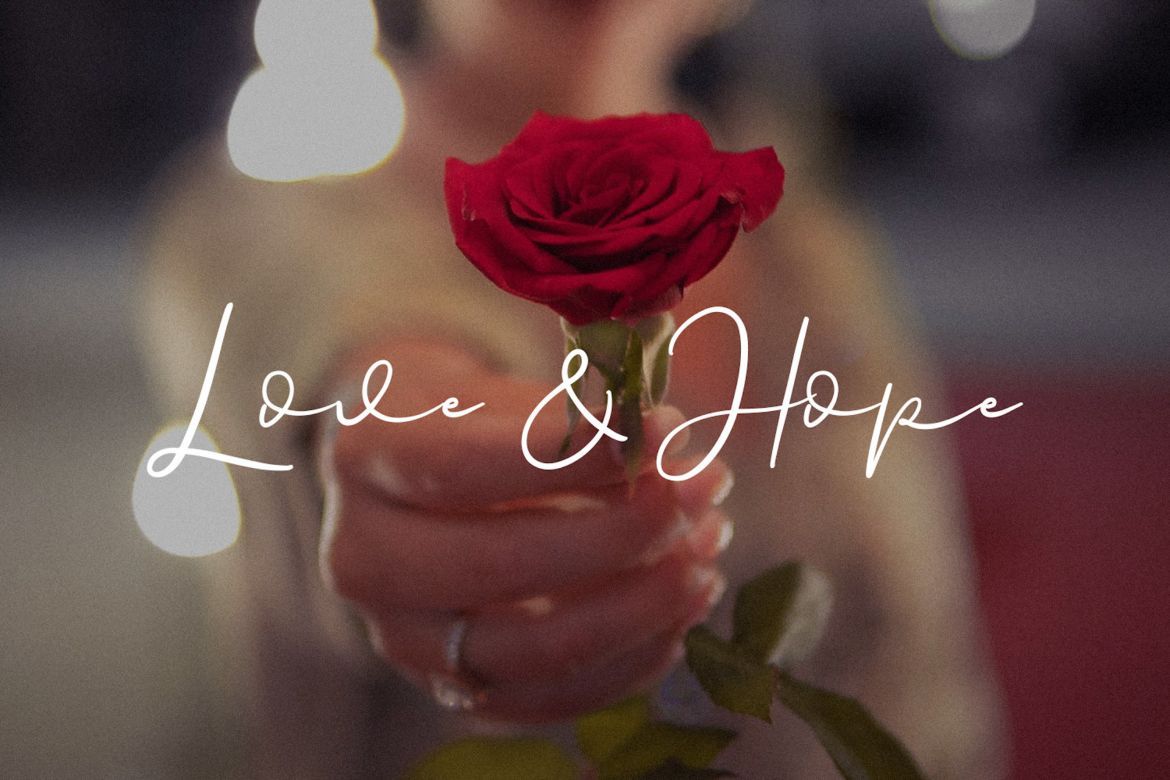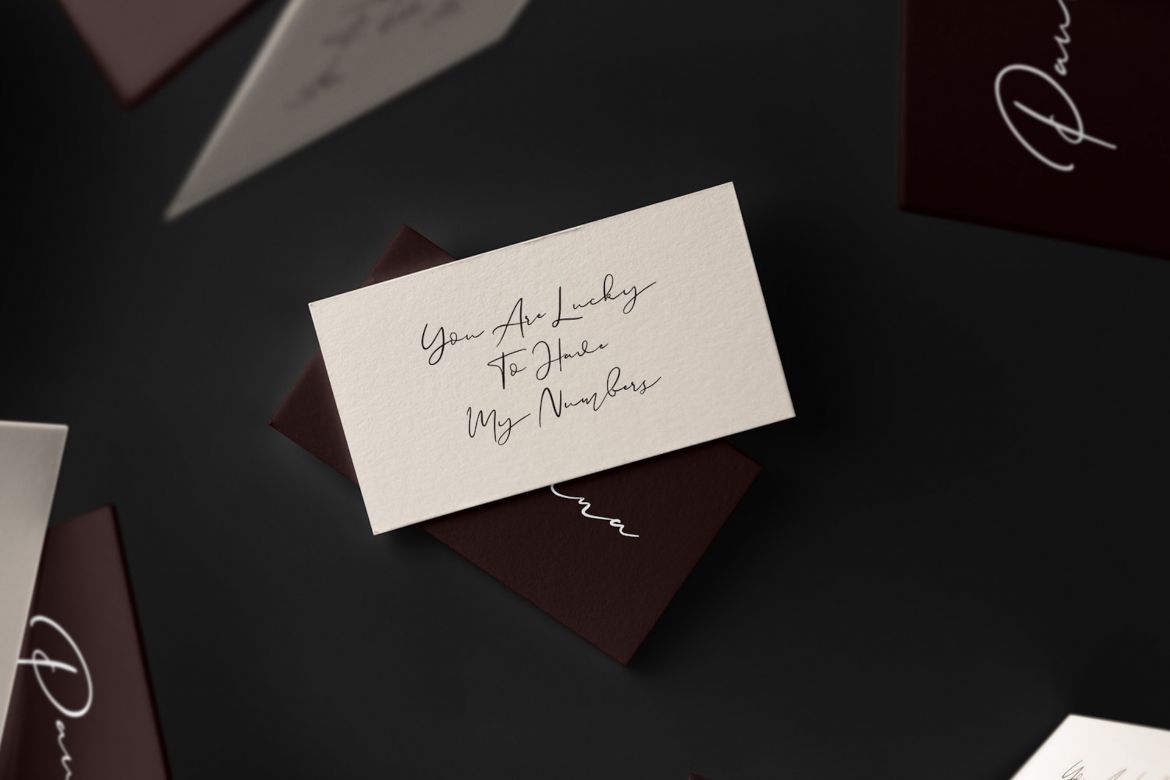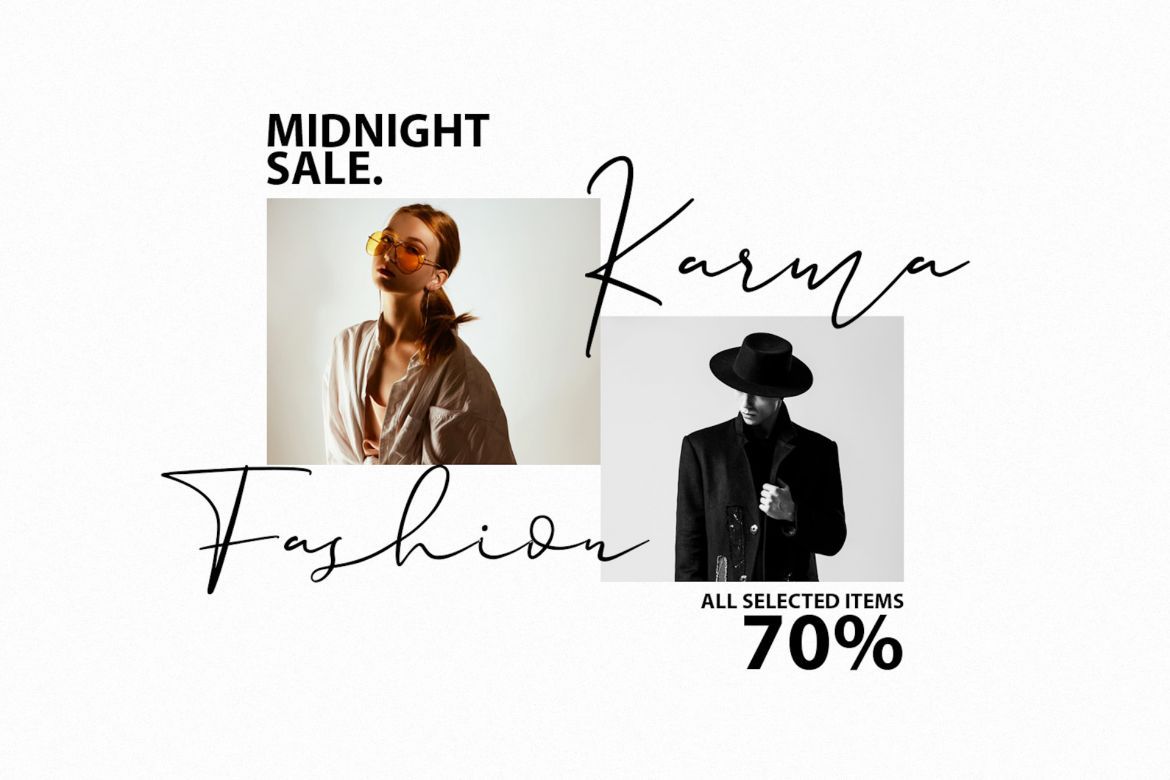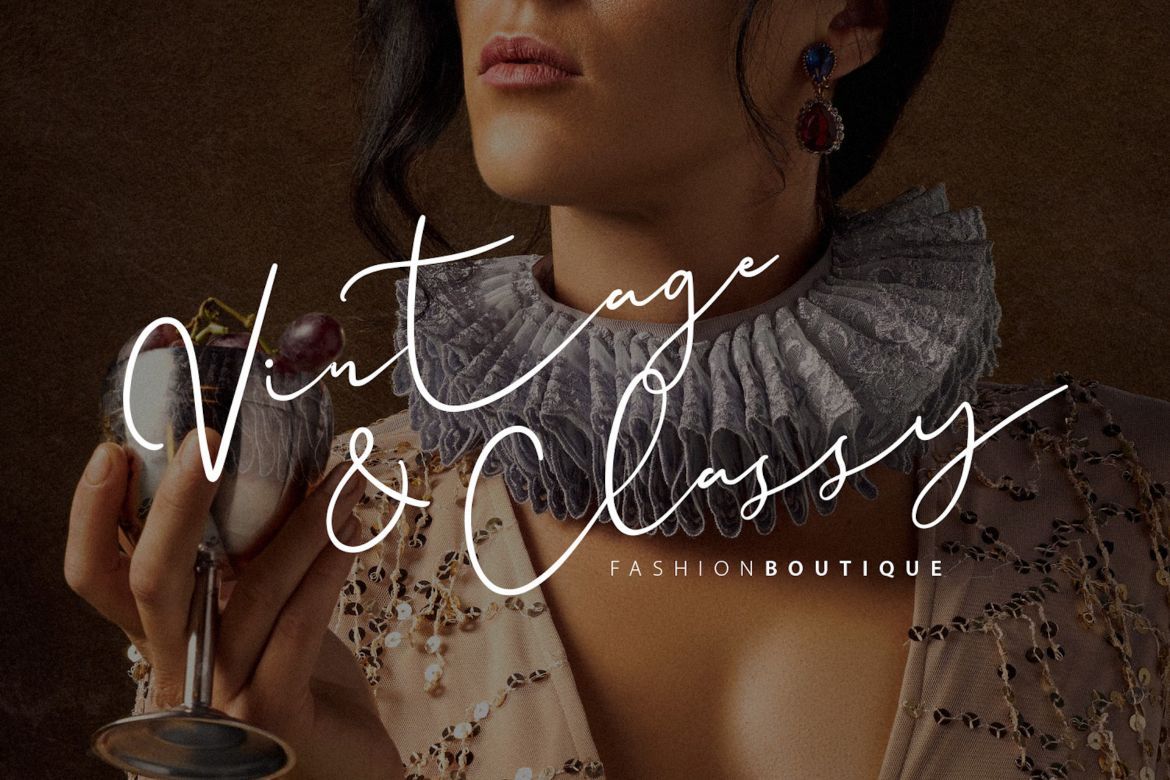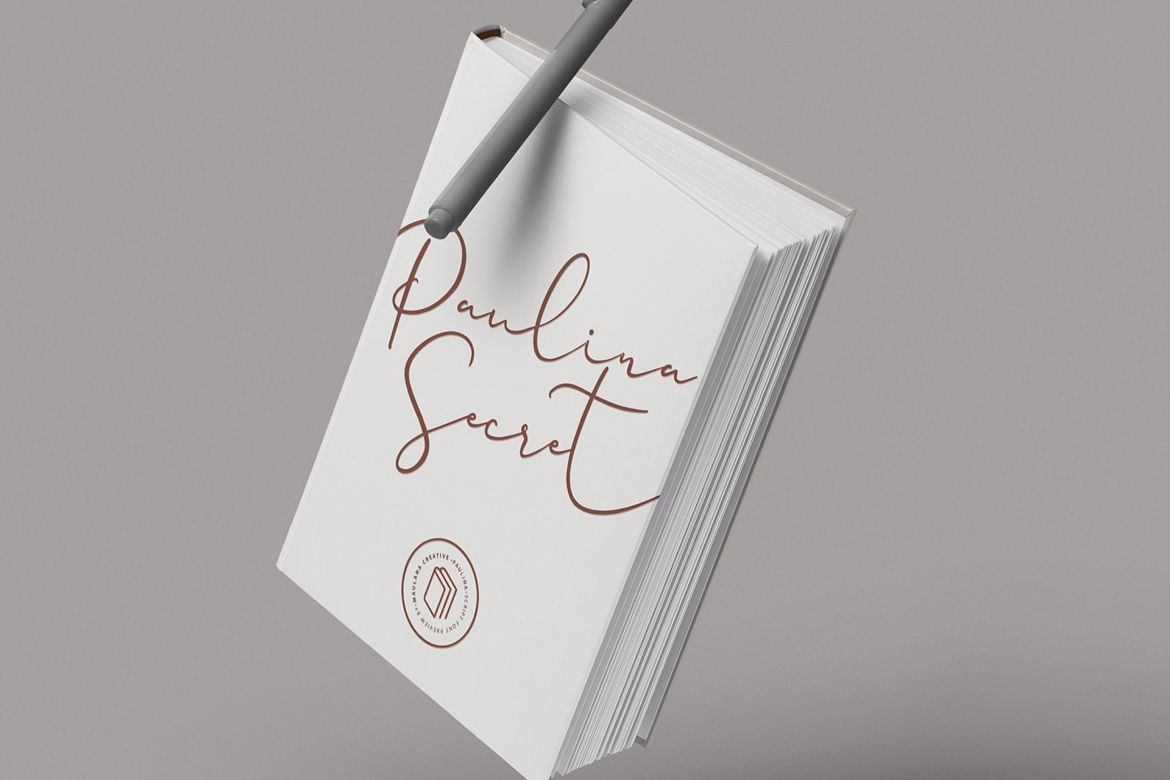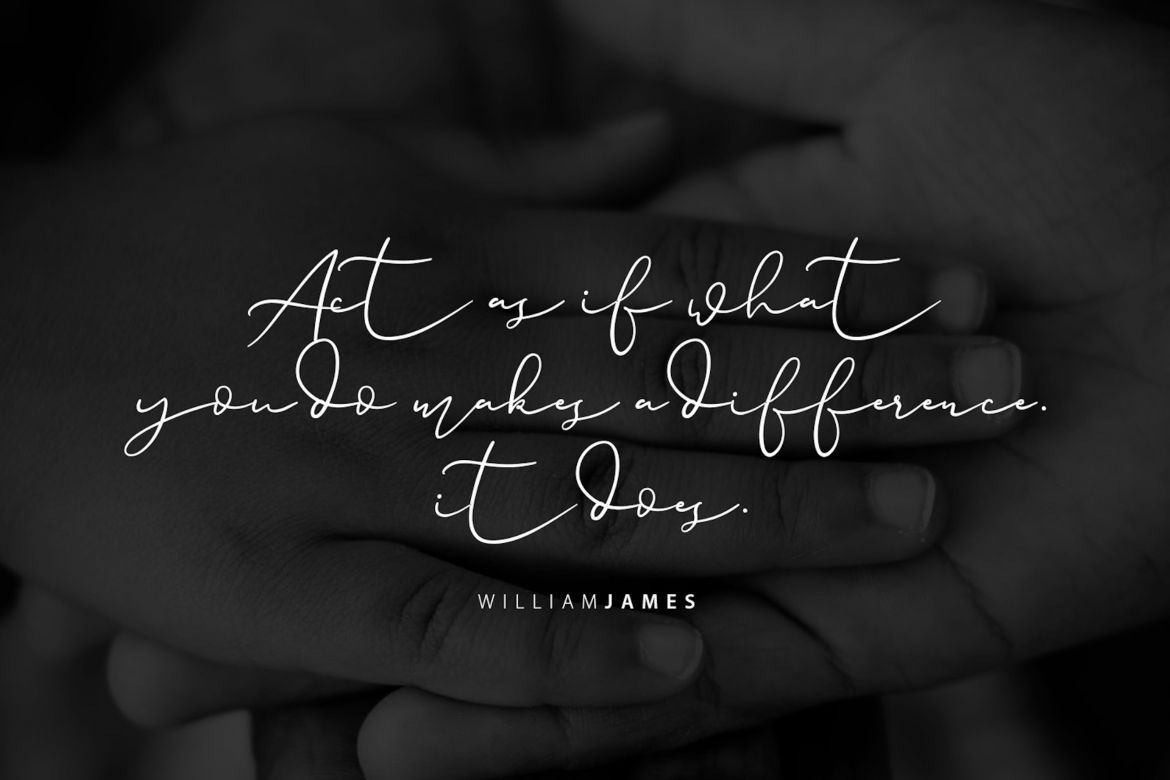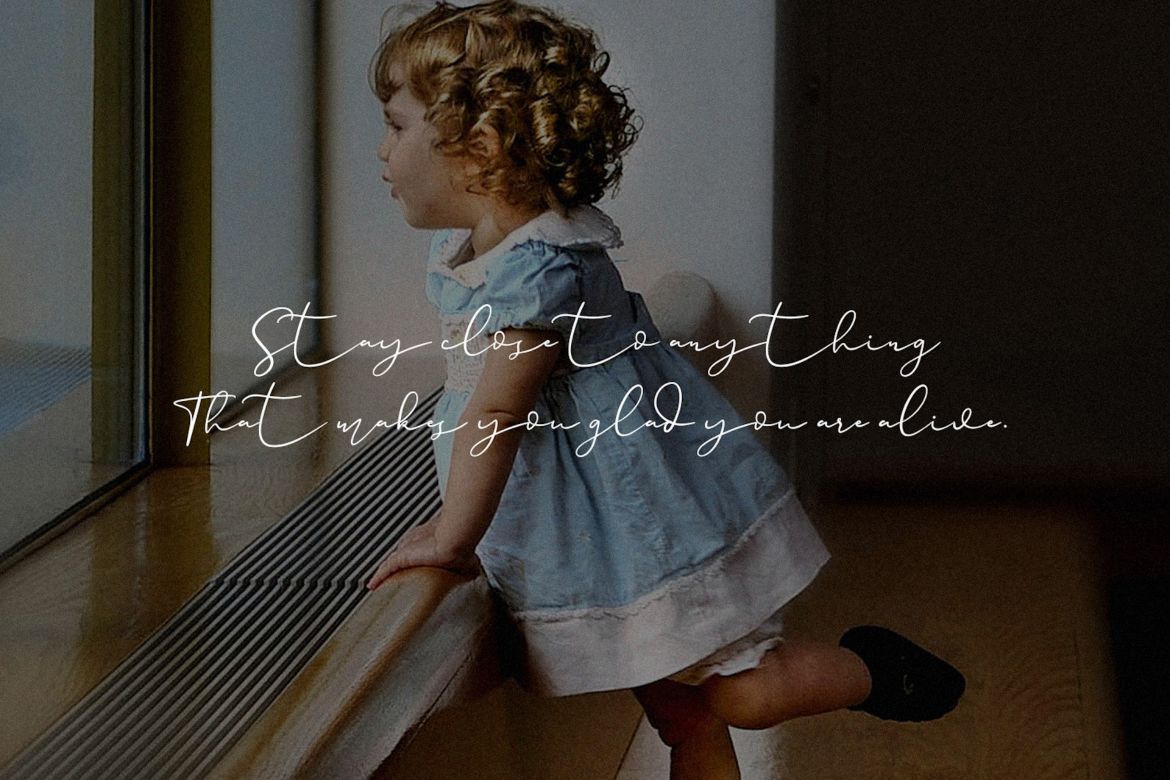
Paulina Elegance Script Font
Give your designs an authentic handcrafted feel. "Paulina Script" is perfectly suited to signature, stationery, logo, typography quotes, magazine or book cover, website header, clothing, branding, packaging design and more.